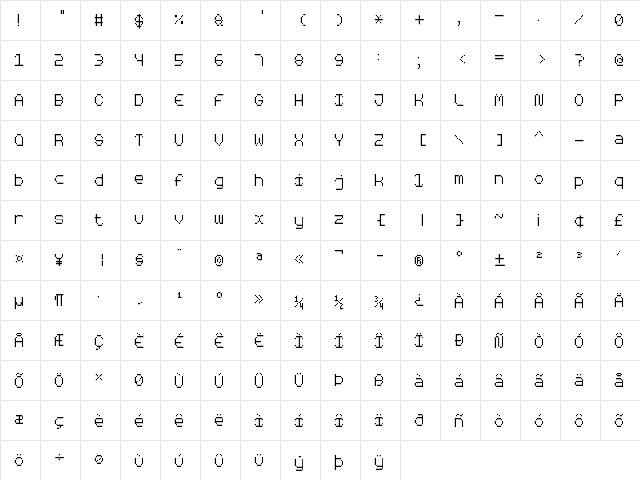
Rounded Pixel-7 Regular
| Foundry | Style-7 |
| Designer | Sizenko Alexander |
Design Context for Rounded Pixel-7 Typeface
Rounded Pixel-7 is rooted in pixel-grid construction, making it a natural fit for game UI, retro computing aesthetics, and digital nostalgia projects.
Well-suited to indie game interfaces, retro computing aesthetics, and pixel art-adjacent design work.
Pro Tip: Use Rounded Pixel-7 at sizes that align with its pixel grid for the sharpest rendering — scaling to non-integer multiples can introduce unwanted blur.